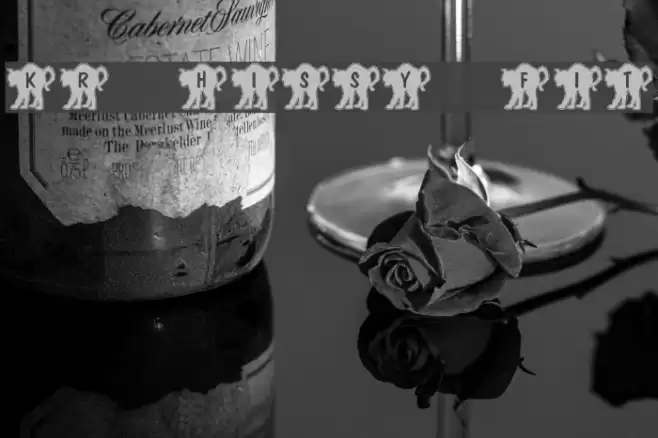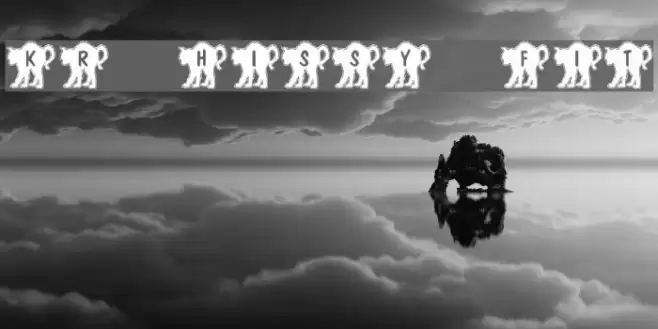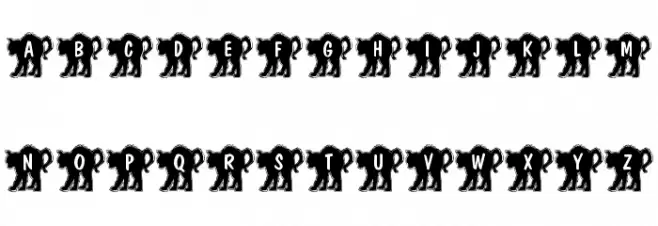
KR Hissy Fit Font
KR Hissy Fit Description
This font features a playful and whimsical design where each character is integrated with a cat silhouette. The letters are bold and clear, yet the addition of the cat shape adds a unique decorative element. The font maintains legibility while providing a fun and quirky aesthetic, making it ideal for creative and informal projects. The consistent use of the cat motif across all characters gives it a cohesive look, while the bold strokes ensure visibility and impact.
A playful font with each letter integrated into a cat silhouette, offering a whimsical and decorative style from Uncategorized fonts.
- Proposed Projects: Ideal for children's books, pet-related branding, playful invitations, or any project needing a fun and unique touch.
- Overall Style: Whimsical, Playful, Decorative
- Use Case: Logos, Headlines, Posters, Invitations